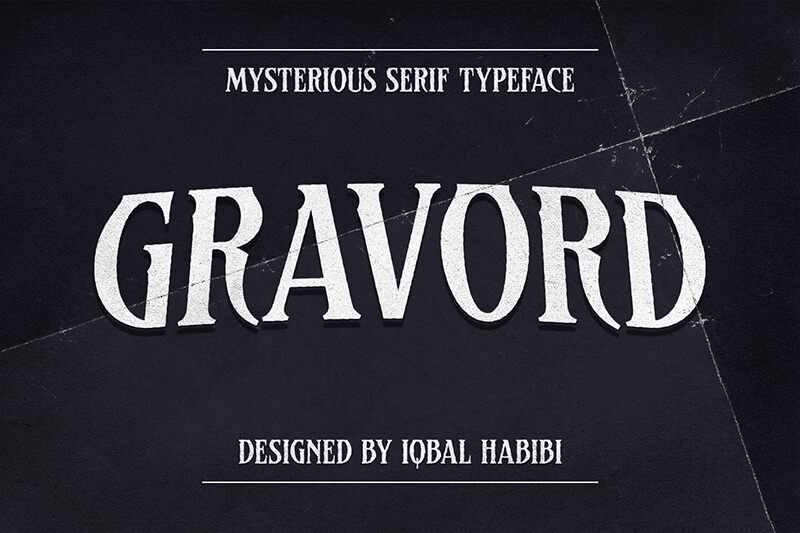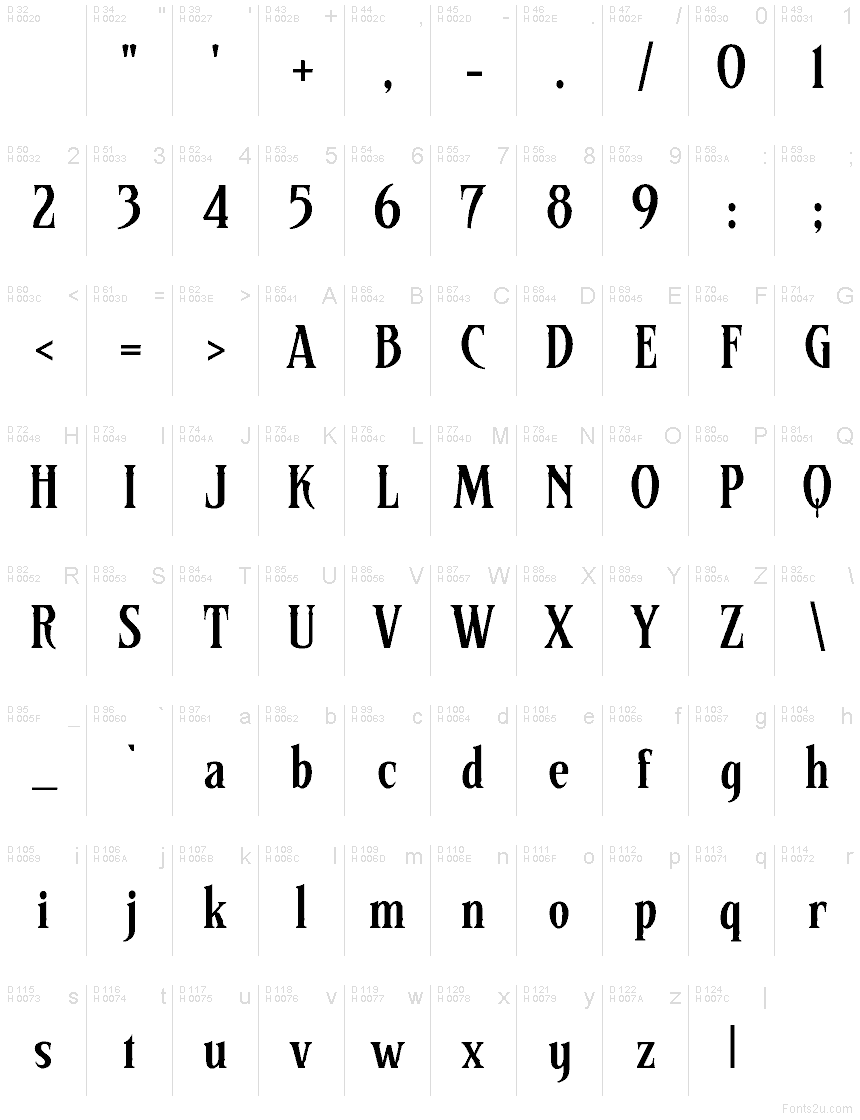
GravordDEMO
Gravord font by Type Combo is a free modern gothic display font. It solves the classic goth-meets-readability problem: you get that dramatic, inky weight and blade-sharp edges without losing clarity. Tall verticals and carved, chiseled notches create a bold rhythm, while the smooth curvature keeps headlines from feeling stiff. The result is intense yet controlled—blackletter attitude with modern poise.
Using Gravord, headlines lock in with confidence on fashion branding, game titles, book jackets, event posters, album art, and editorial mastheads. This free font thrives at larger sizes where its sculpted contrasts can breathe. Pair it with a clean, low-contrast sans to let Gravord carry the mood without competing textures.
This font does not have complete characters. Only basic characters A-Z Lowercase and Uppercase.